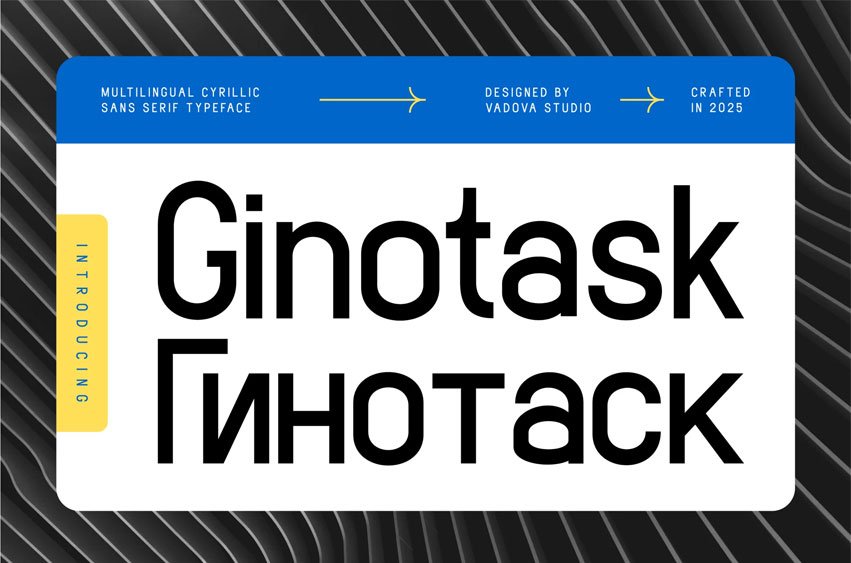
Ginotask Font is a modern neo-grotesk sans-serif typeface that thrives on sharp clarity and functional elegance. Designed with contemporary branding in mind, it radiates confidence and structure while keeping a refined simplicity. Its vibe is sleek and composed, giving off a sense of quiet authority ideal for businesses, digital interfaces, and marketing materials that demand attention without being loud.
This font speaks directly to a global, design-savvy audience. Featuring both Latin and Cyrillic support, Ginotask is not just a design choice—it’s a communication bridge for multilingual brands and international visual systems. Its crisp, neutral style fits perfectly into modern tech startups, high-end corporate branding, minimalist portfolios, and editorial layouts that lean toward tech sophistication.
Its best use cases include global branding, clean editorial spreads, packaging for tech and lifestyle products, pitch decks, website headers, and information-dense layouts where clarity is key.
Suitable For: branding, bilingual publishing, tech presentations, corporate identities, modern packaging, UI/UX design, clean web layouts, international signage, digital magazines, product manuals, startup portfolios, minimalist branding kits, multilingual brochures, software apps, and business systems.